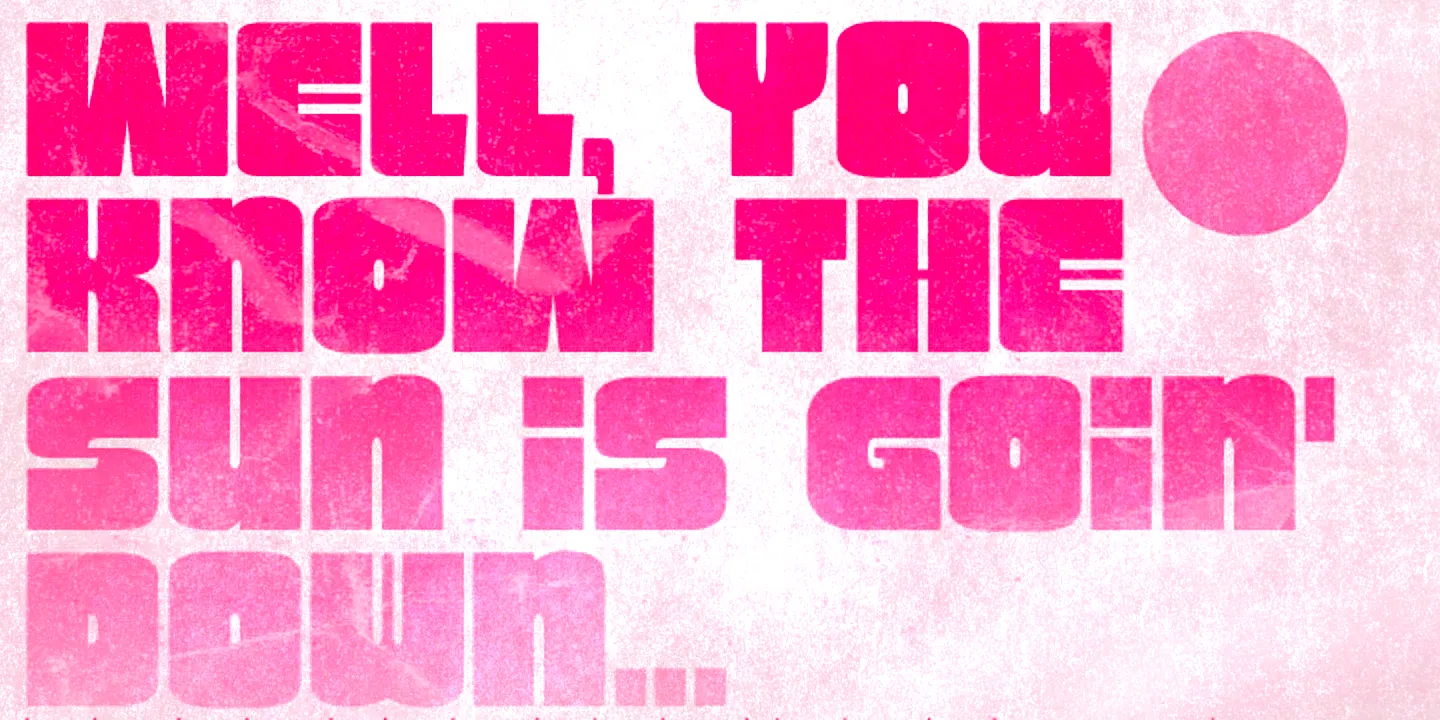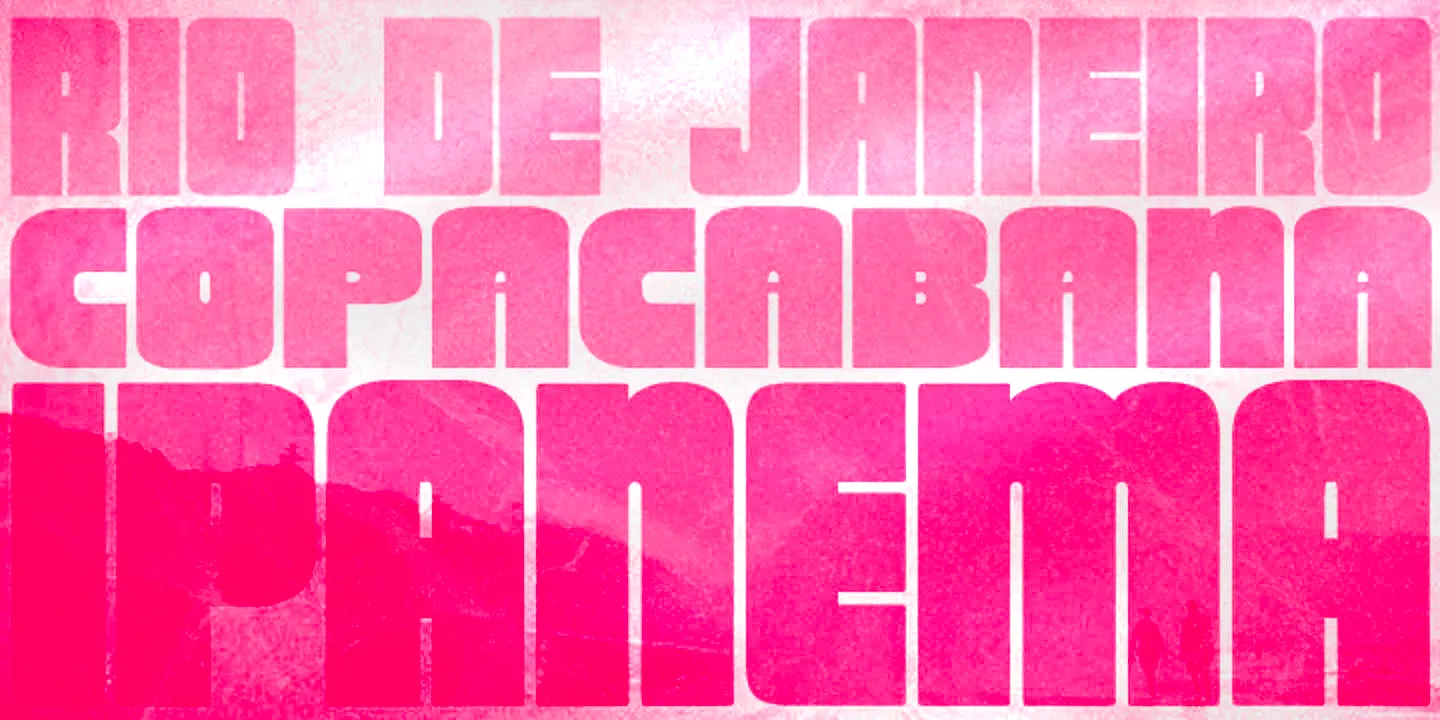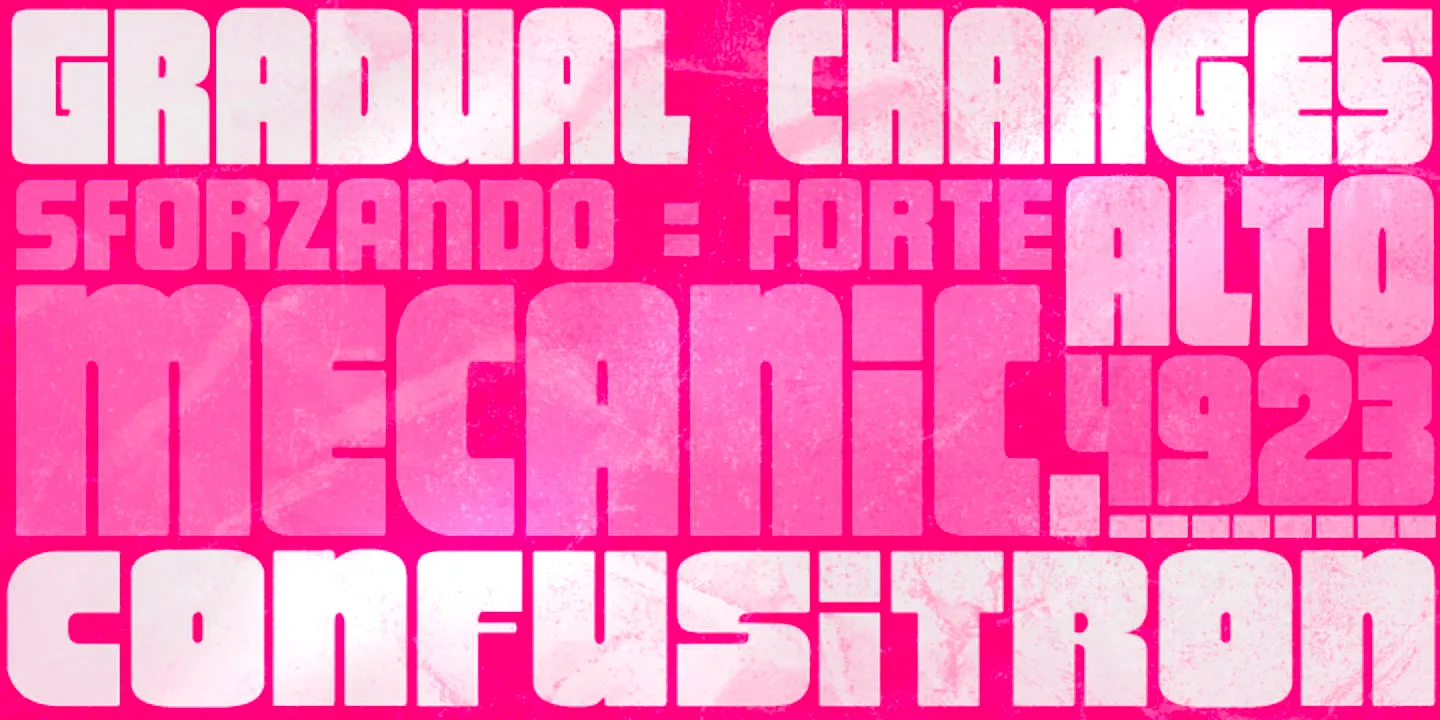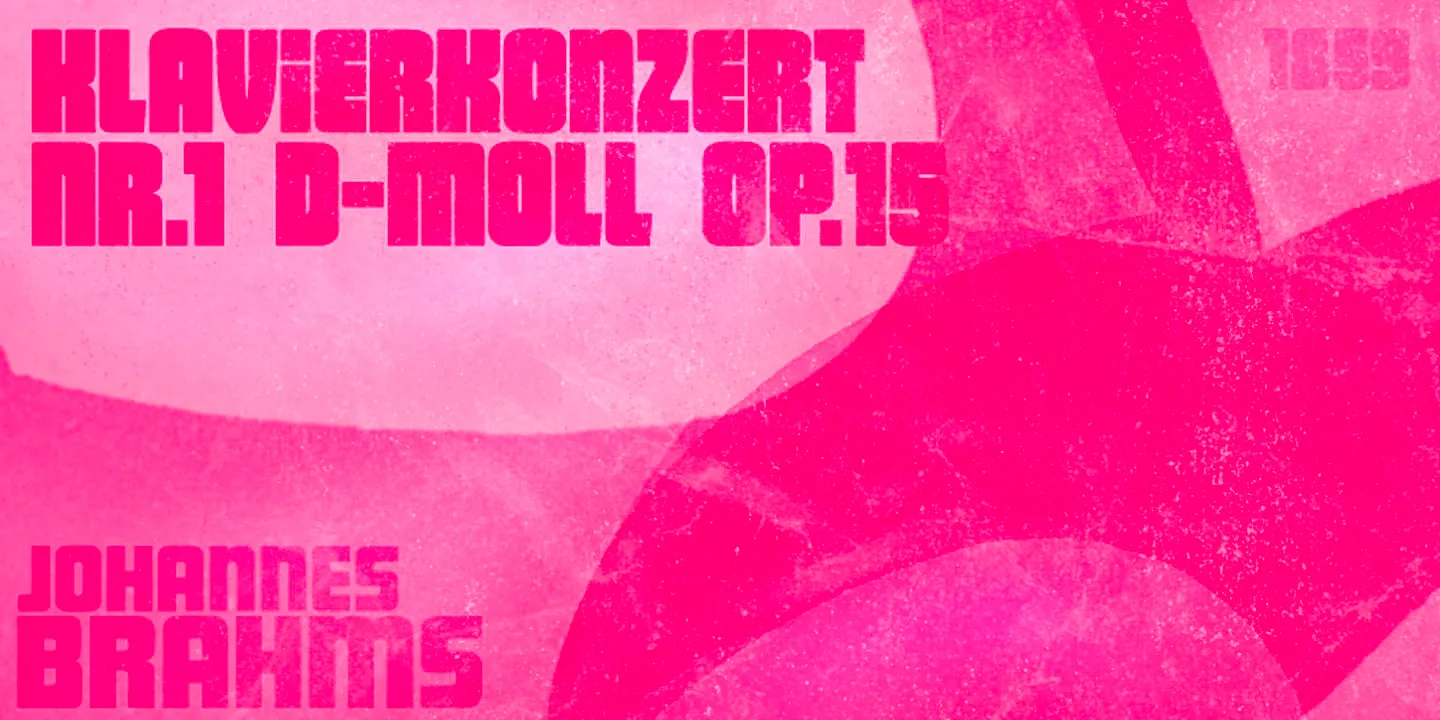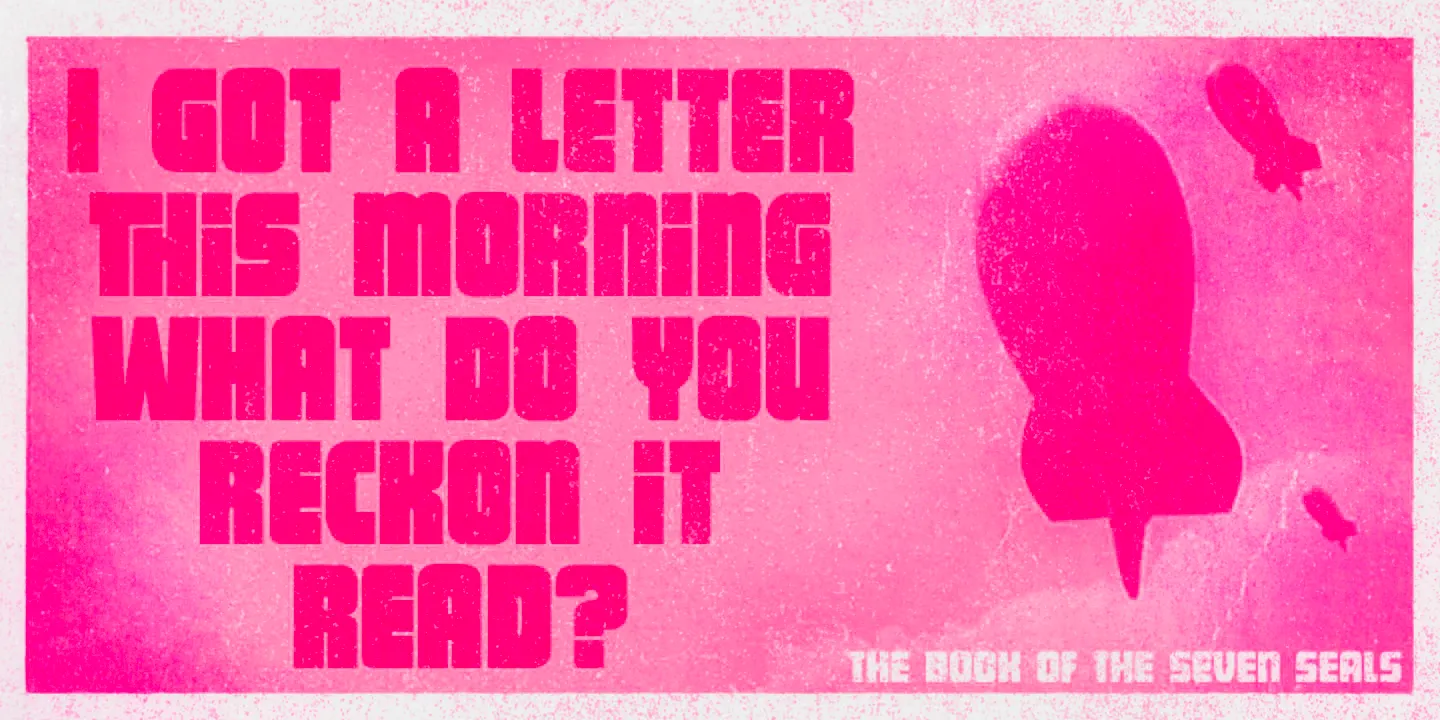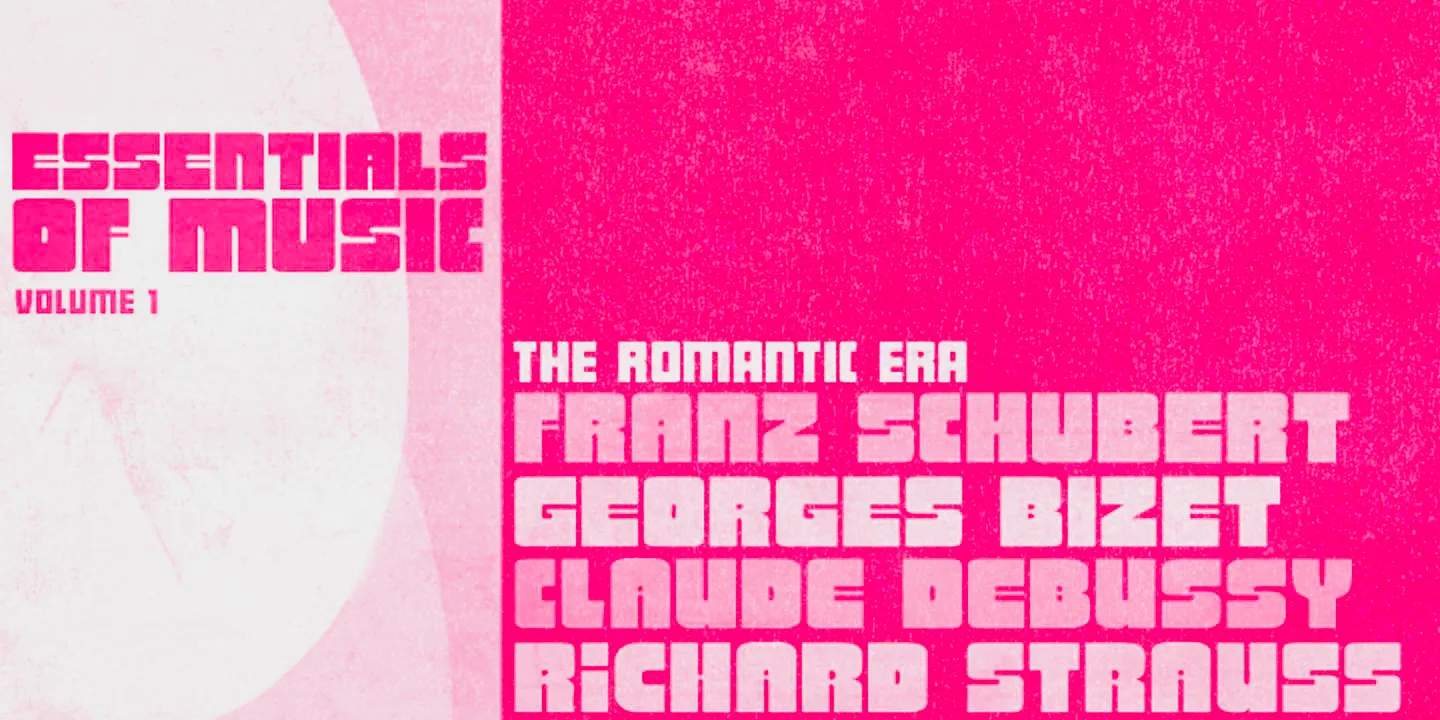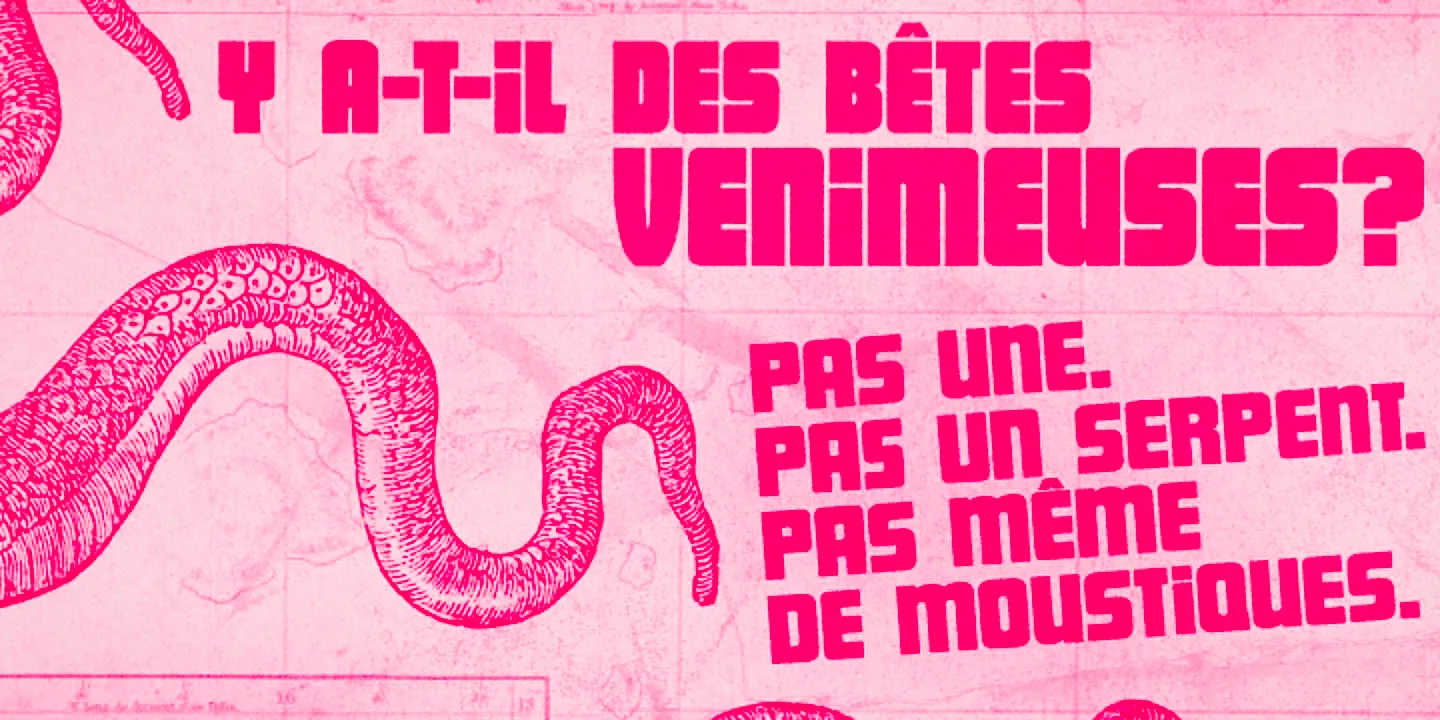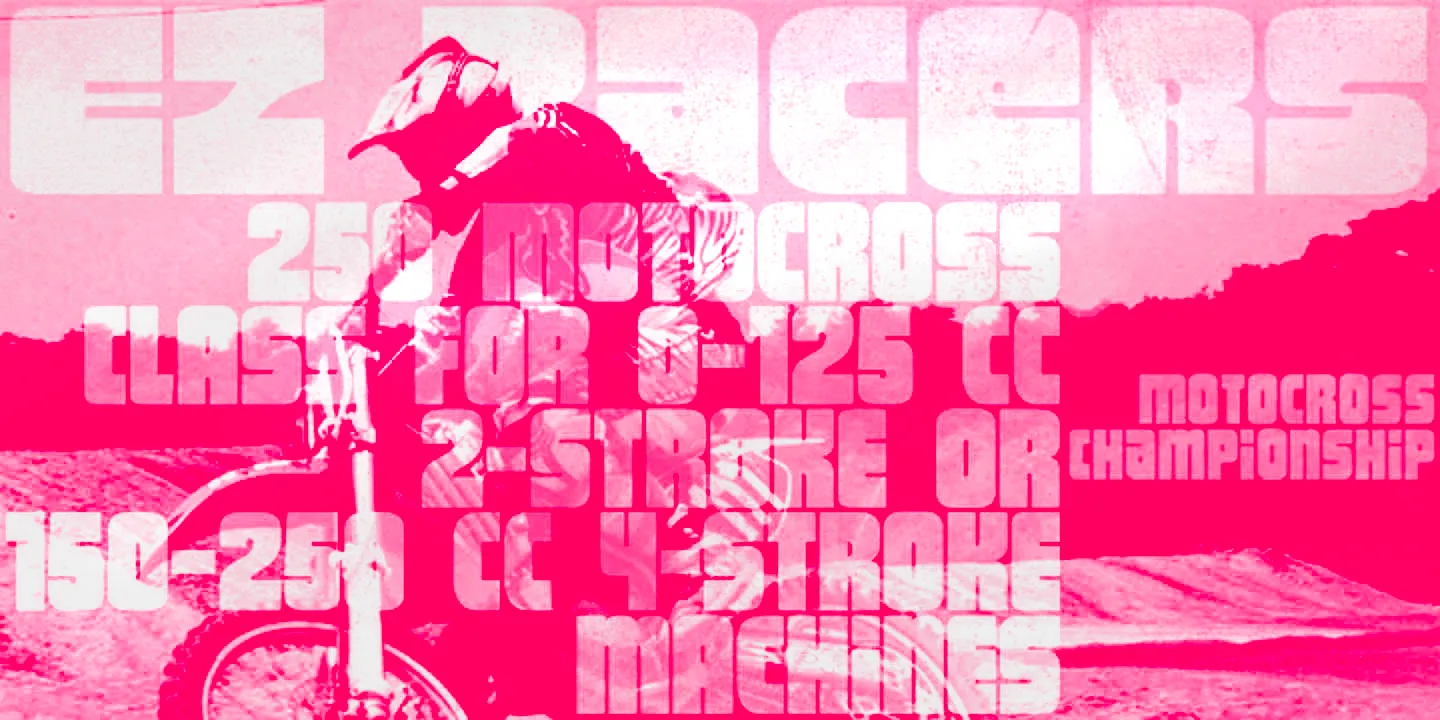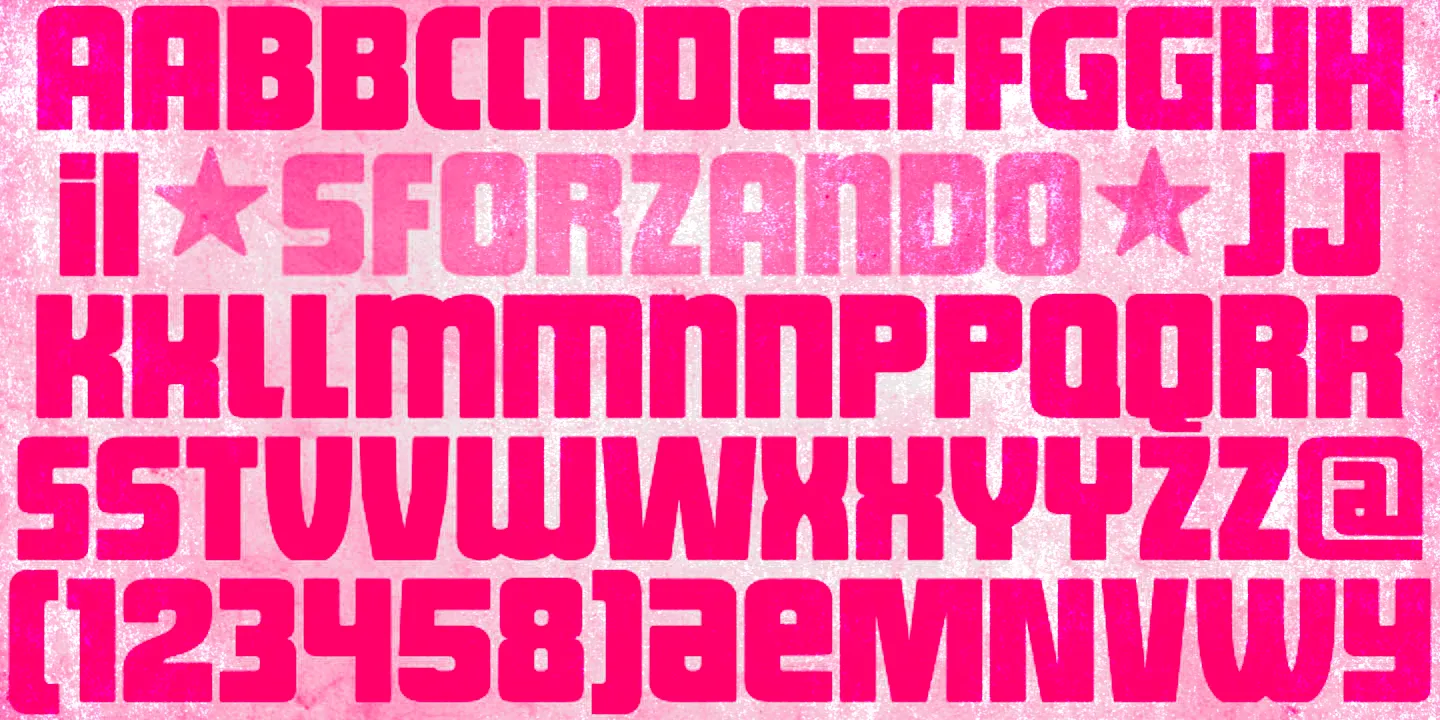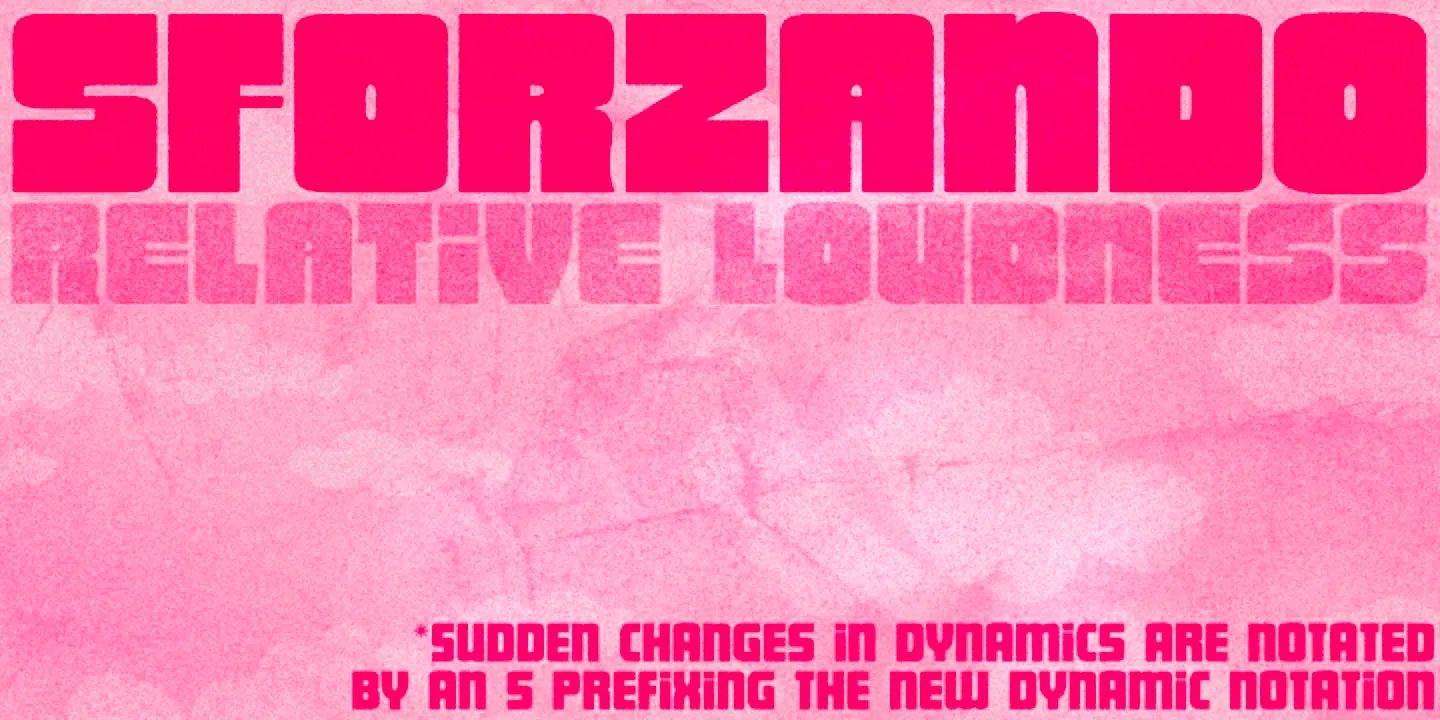
Sforzando Font Family
• Sforzando Altissimo
• Sforzando Alto
• Sforzando Regular
Sforzando
Sforzando is a strikingly bold and modern display sans serif font family. It comes with a small but handy set of alternates that help create an original and unusual touch, amplifying your design choices. Vigorous and versatile, its compact letterforms and tight spacing pack a visual punch. Sforzando is an excellent choice for a wide range of applications, including concert posters, editorial layouts, film titles, book covers, food packaging, and any situation where attention is non-negotiable!